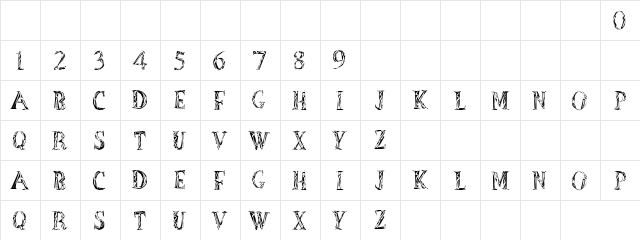
OshKosh Regular
Design Context for OshKosh Typeface
OshKosh is a composed and adaptable typeface that performs quietly and consistently across a wide range of design contexts.